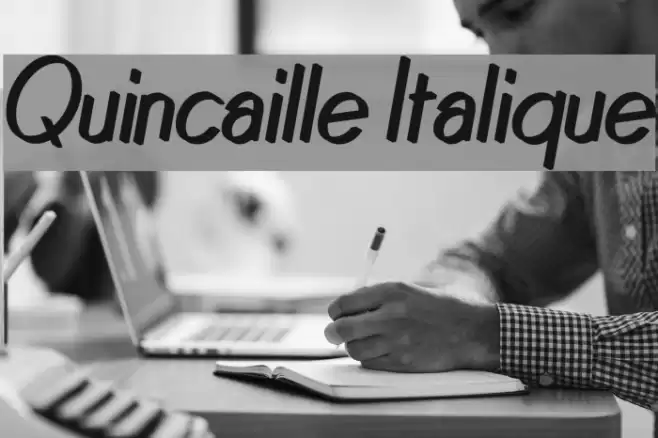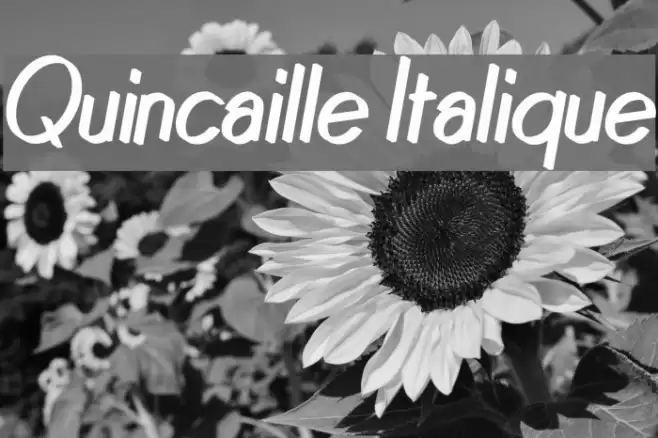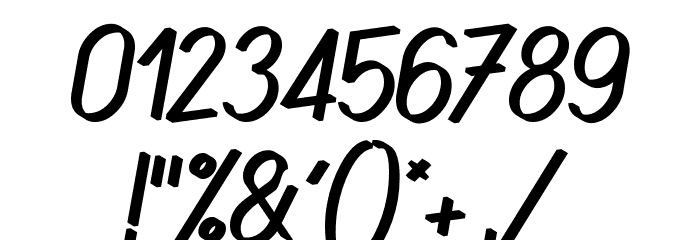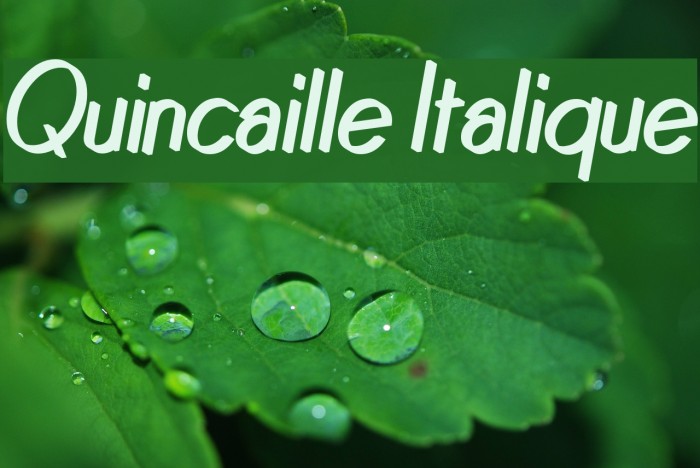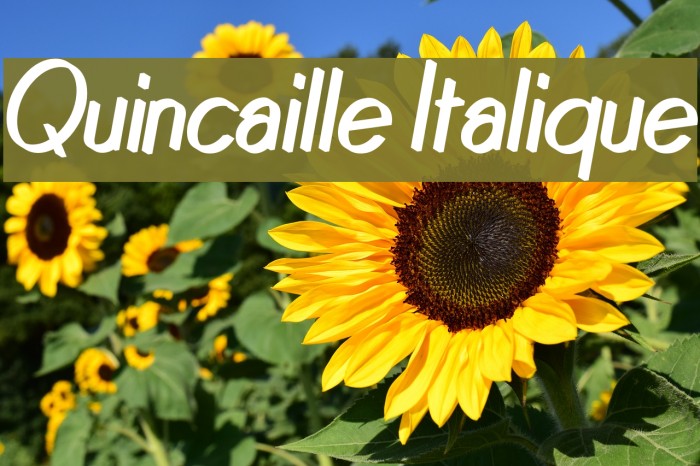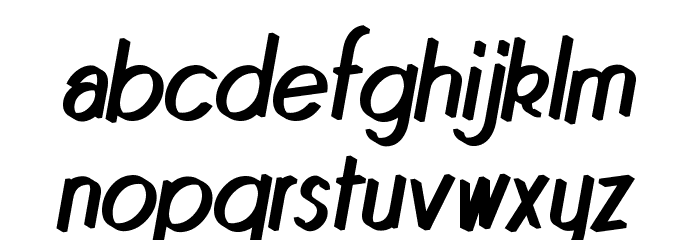
Quincaille Italique Font
Quincaille Italique Description
This font features a dynamic and energetic style with a slight slant, giving it an italicized appearance. The characters are bold and have a playful, handwritten quality, making them stand out with a unique flair. The uppercase and lowercase letters maintain a consistent style, with rounded edges and a slight tilt that adds to the overall movement of the text. The numbers and special characters are designed to match the lively and informal aesthetic, ensuring a cohesive look across all elements.
A bold, italicized font with a playful, handwritten style from Uncategorized fonts.
- Proposed Projects: Ideal for creative projects such as posters, invitations, and branding materials that require a lively and informal touch.